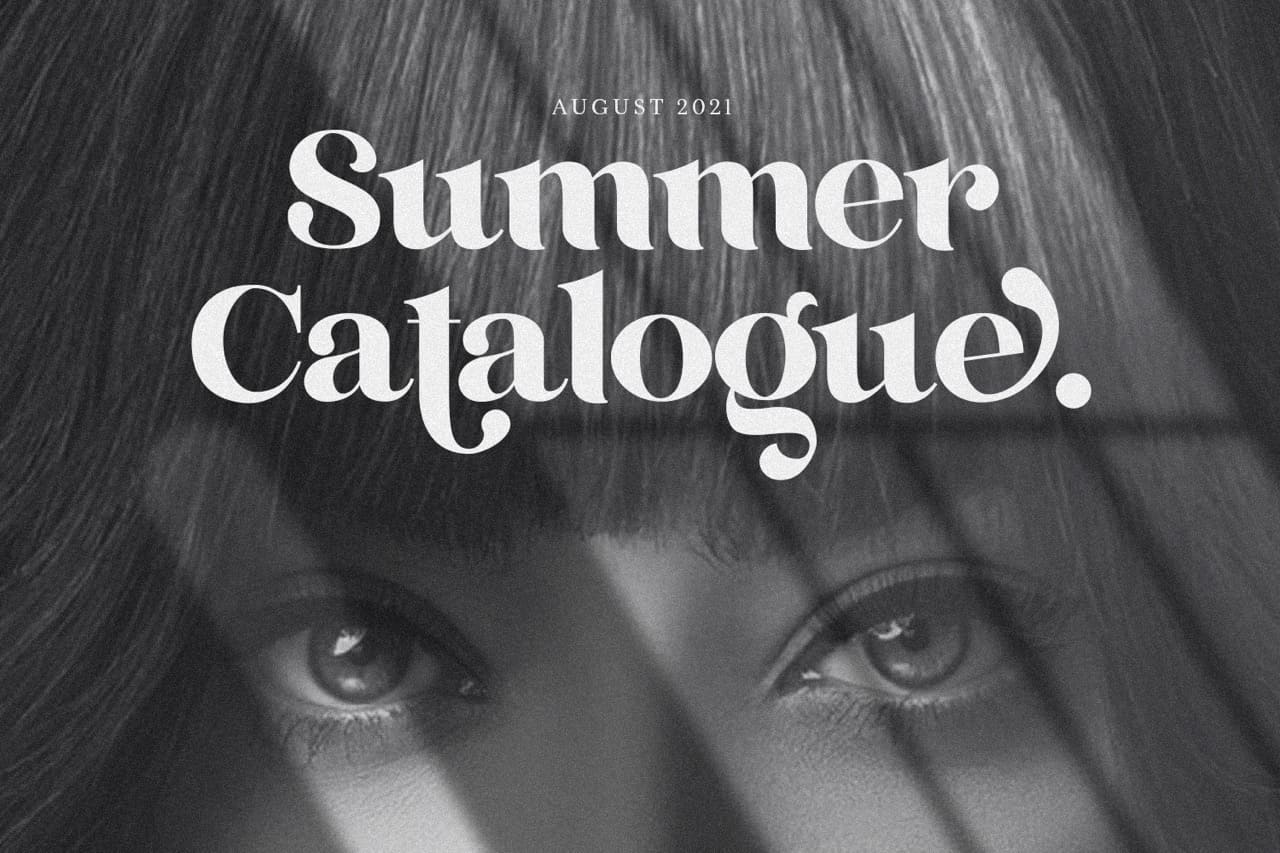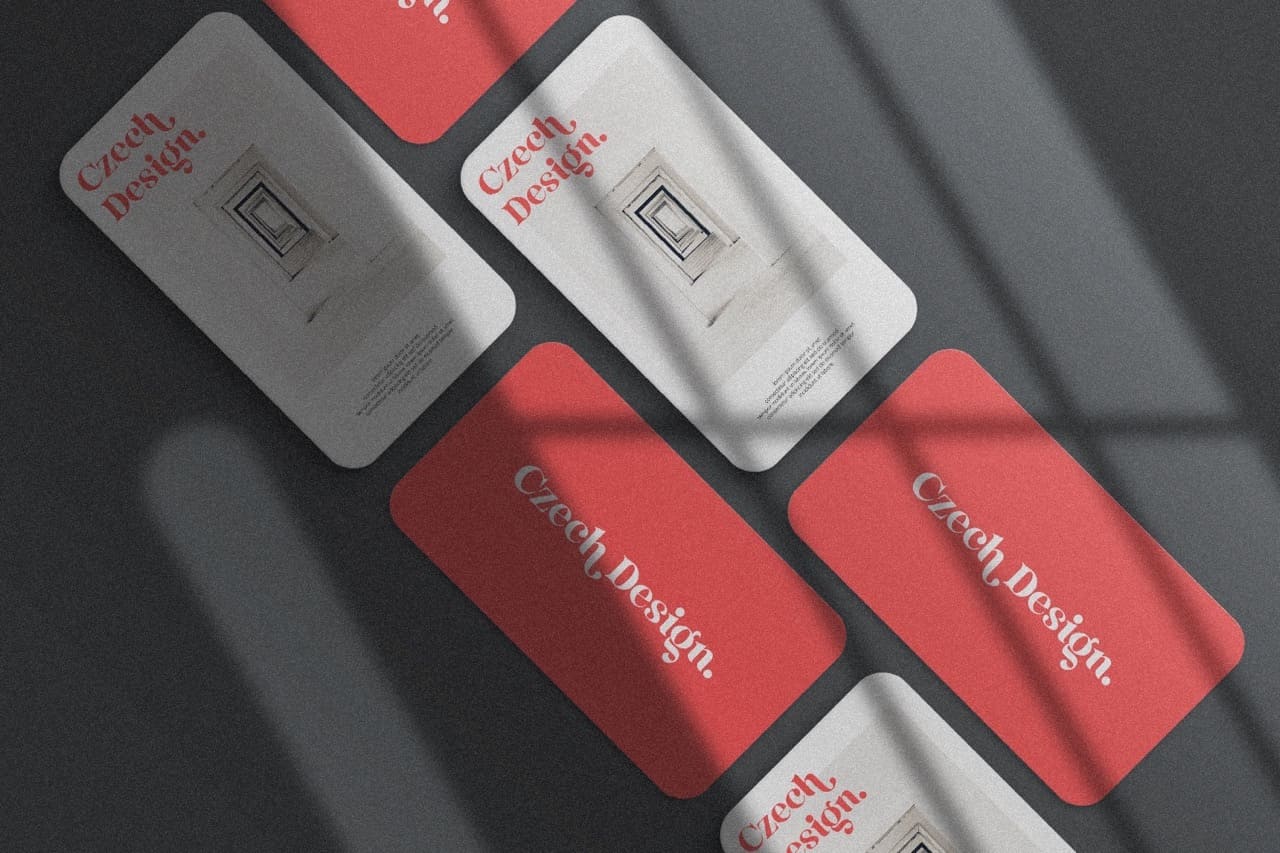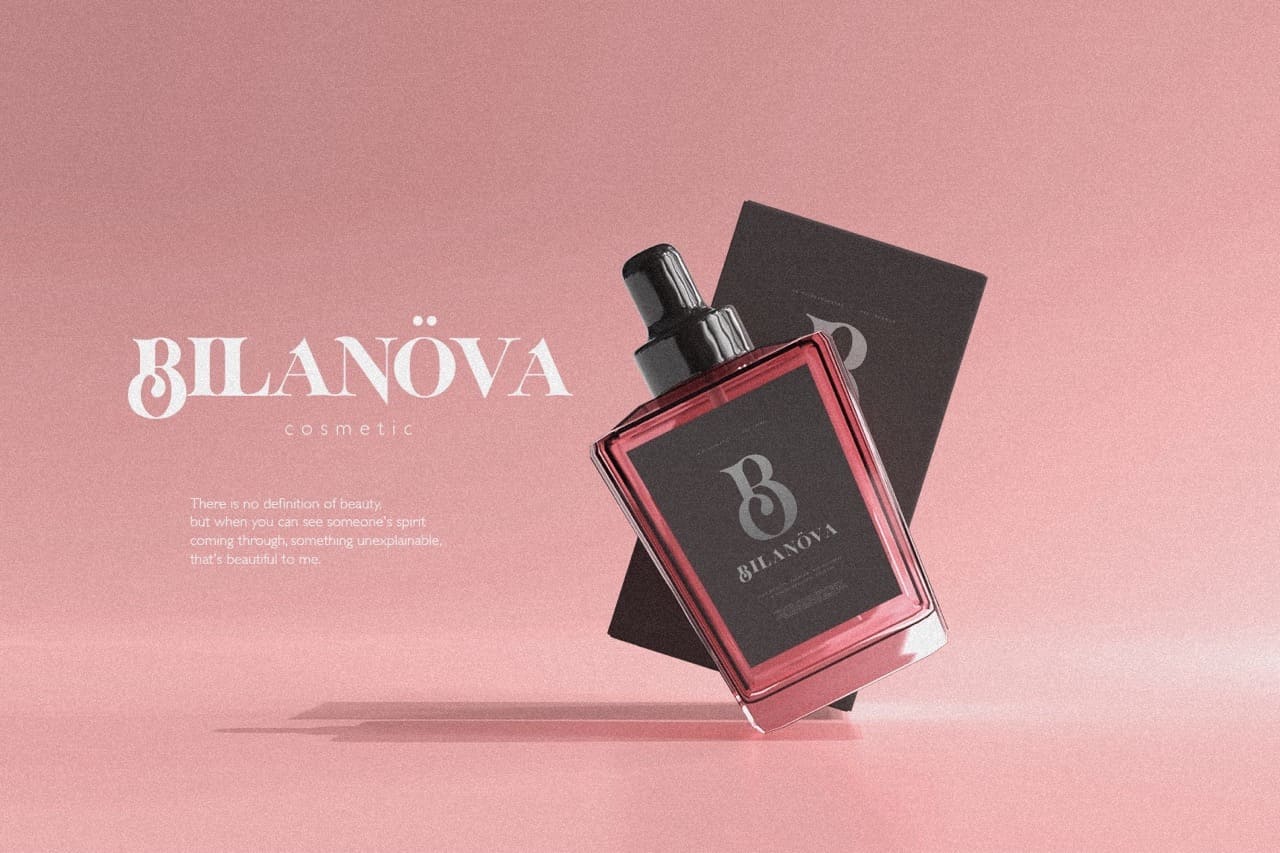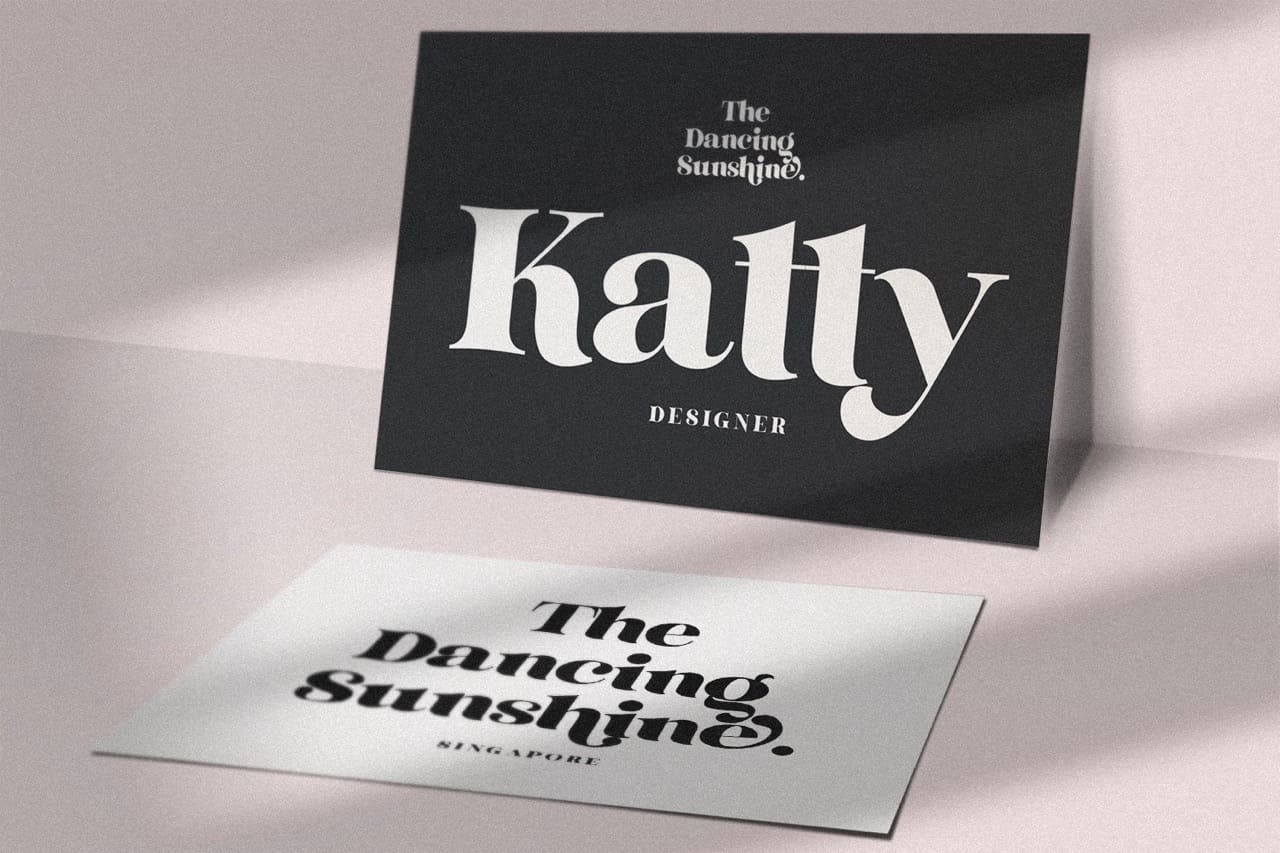
BRANT is a serif typeface with a truly special appeal. You’ll love its modern and classic design, which is combined with a playful Ligature & Alternate font set. It can be used in logos, posters and even t-shirts to make your brand stand out.
- 5 Weights
- Stylistic Ligatures and Alternate Glyphs